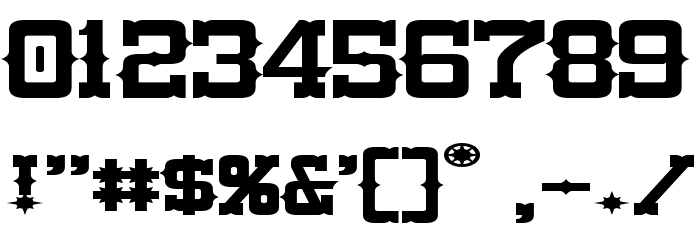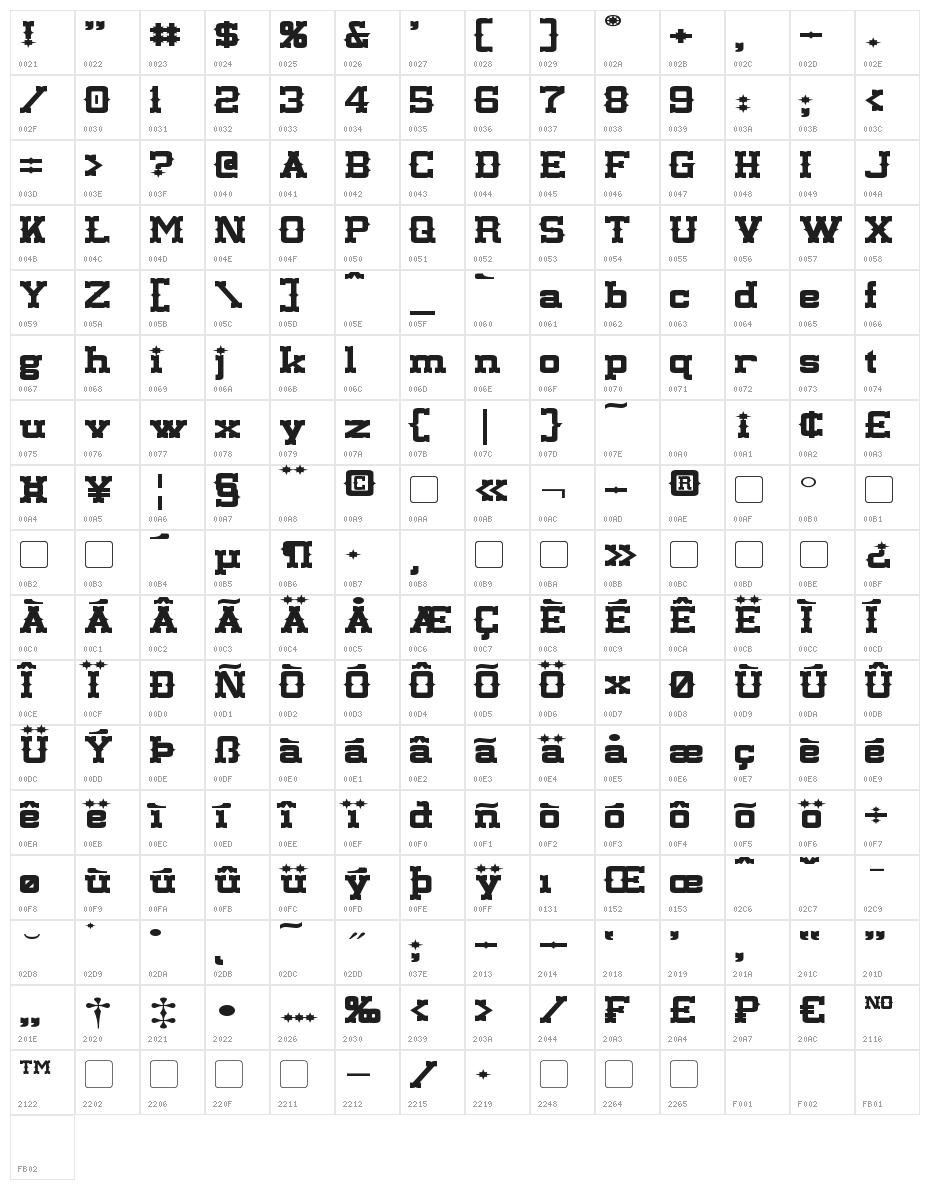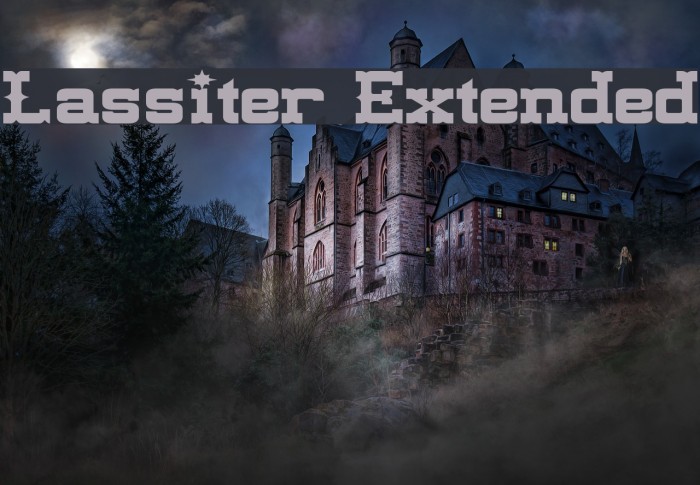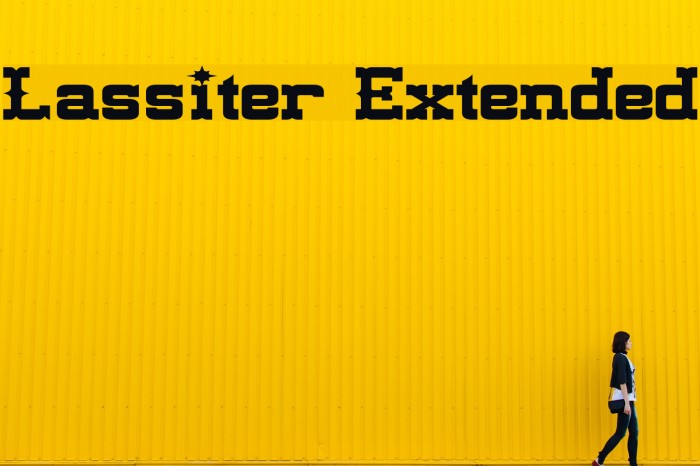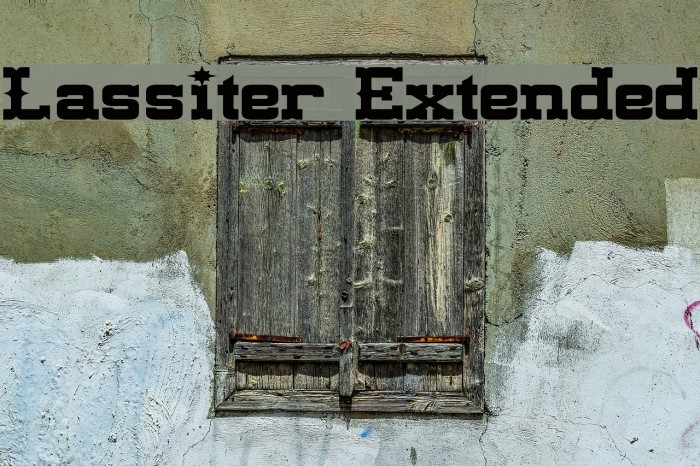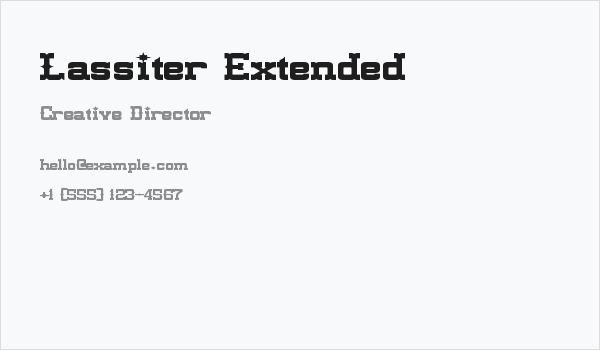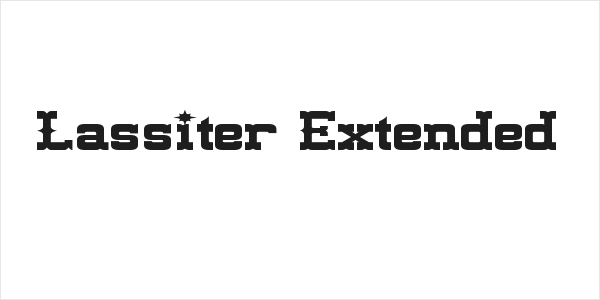
Lassiter Extended Font
Lassiter Extended Description
This font features a bold and striking design with a distinct Western-inspired aesthetic. The characters are heavily stylized with sharp edges and unique embellishments, giving it a rugged and adventurous feel. The uppercase letters are particularly prominent, with strong, angular lines and decorative elements that evoke a sense of the Wild West. The lowercase letters maintain the boldness of the uppercase, with slightly softer curves that add a touch of balance. Numbers and special characters are equally bold, with consistent styling that ties the entire set together. This font's unique character makes it ideal for projects that require a strong visual impact.
| Proposed Projects | Ideal for posters, branding, and signage that require a strong, adventurous aesthetic. |